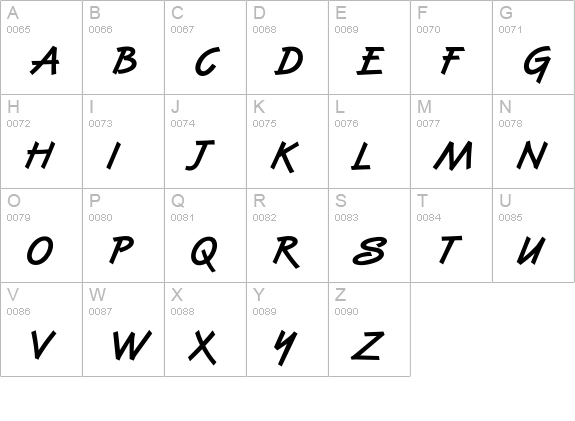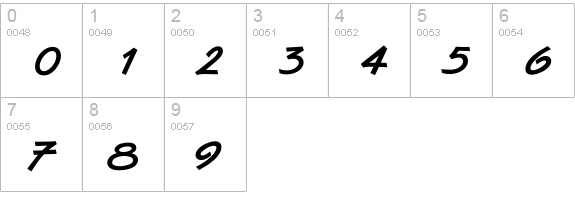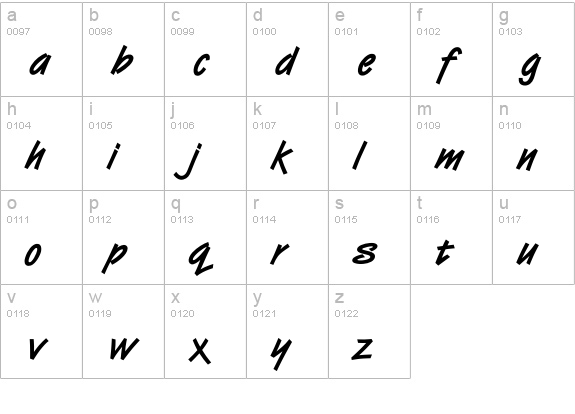
OPTIVanilla-Bold is a strong, high-contrast variant in the OPTIVanilla typeface family \xE2\x80\x94 well suited to headlines, attention-grabbing titles, and strong calls-to-action.
OPTIVanilla-Bold is a modern and stylish font that exudes confidence and sophistication. With its bold and striking design, this typeface is perfect for making a statement in any project. The sharp lines and sleek curves of OPTIVanilla-Bold make it a versatile choice for a wide range of design applications, from branding to headlines and more. What sets OPTIVanilla-Bold apart is not only its aesthetic appeal but also its accessibility. This font is available for free download at FontsMarket.com, making it easy for designers and creatives to incorporate it into their work without any cost barriers. Whether you're looking to add a touch of elegance to your designs or make a bold statement, OPTIVanilla-Bold is the perfect choice for your next project.